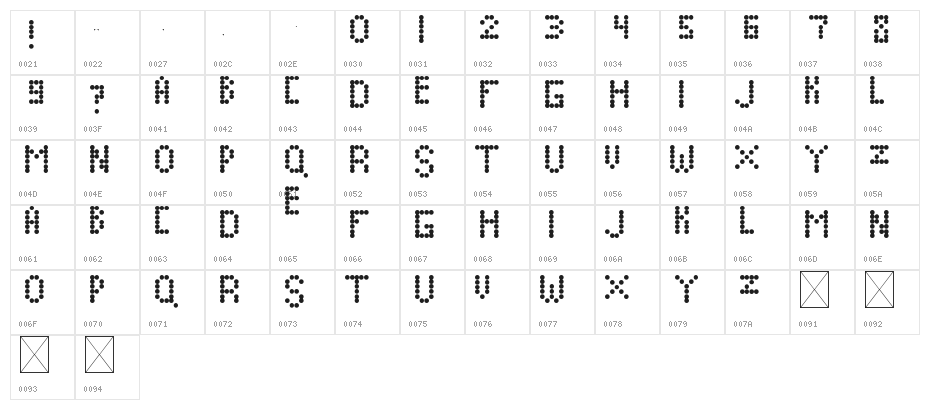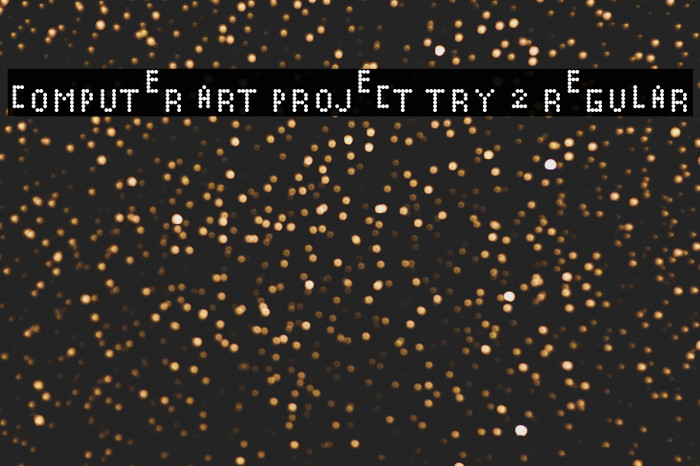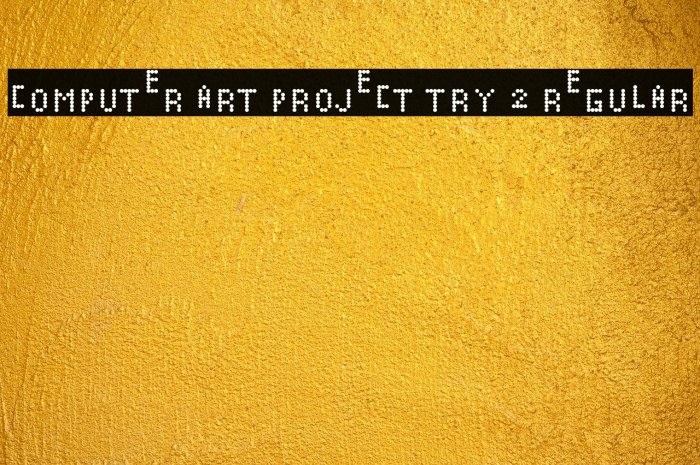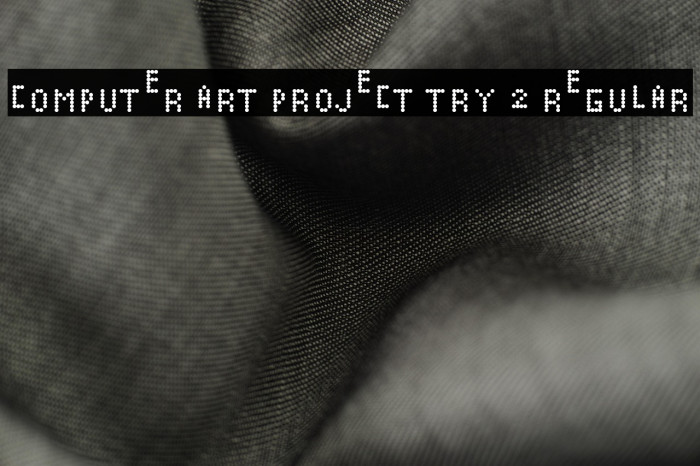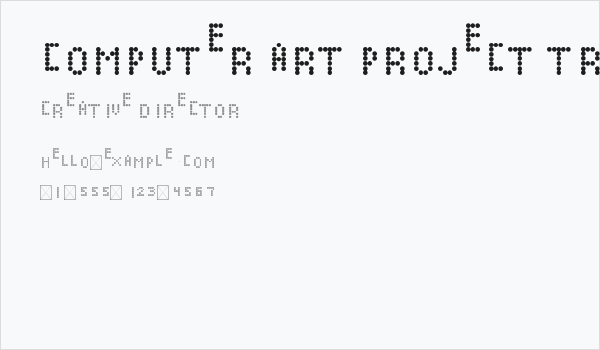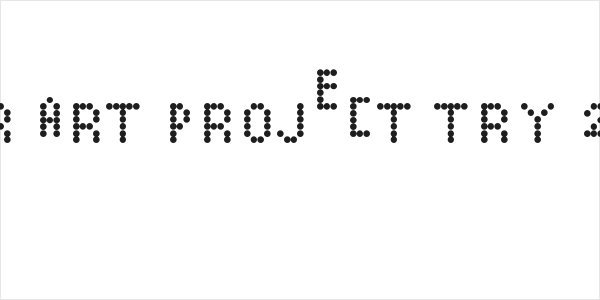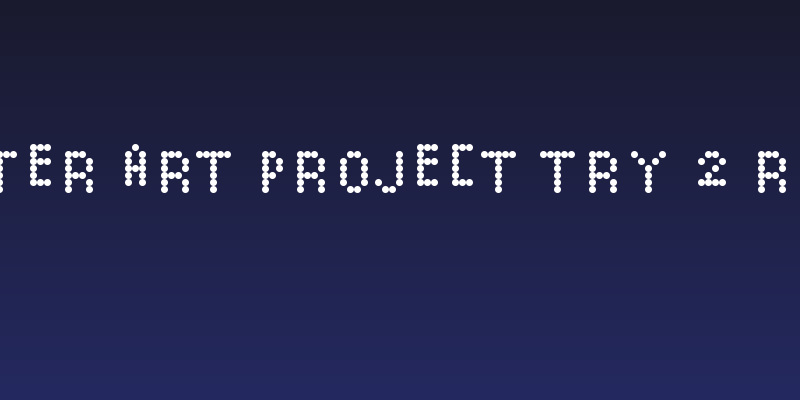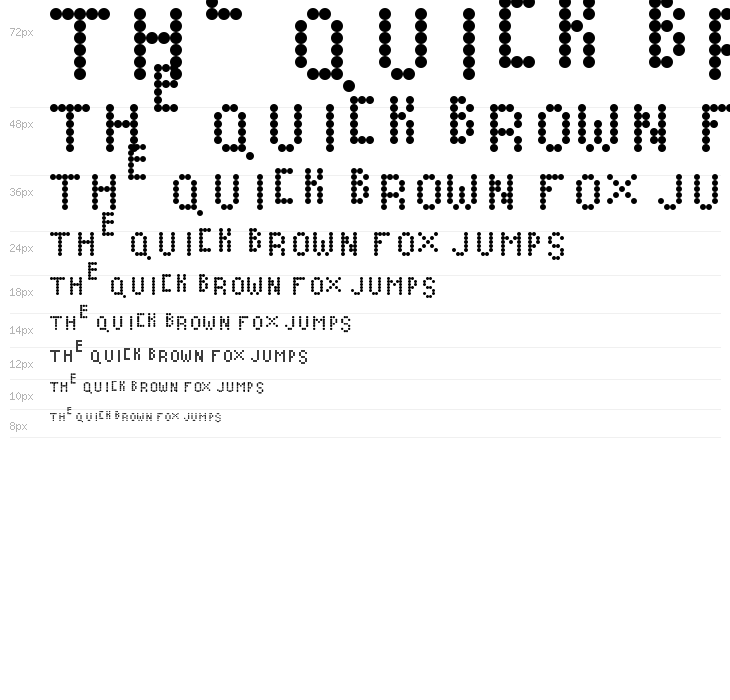
Computer Art Project Try 2 Regular Font
Computer Art Project Try 2 Regular Description
This font features a unique design composed entirely of small, evenly spaced dots forming each character. The style is geometric and modern, with a playful yet structured appearance. Each letter and number is clearly defined, maintaining legibility despite the unconventional dot pattern. The font is consistent across uppercase and lowercase letters, as well as numbers and special characters, providing a cohesive look. The dotted design gives it a digital or pixelated feel, reminiscent of early computer graphics or LED displays.
| Use Case | Logos, Posters, Digital Art |
| Proposed Projects | Ideal for digital art projects, tech-themed designs, modern posters, or any creative work requiring a futuristic or digital look. |